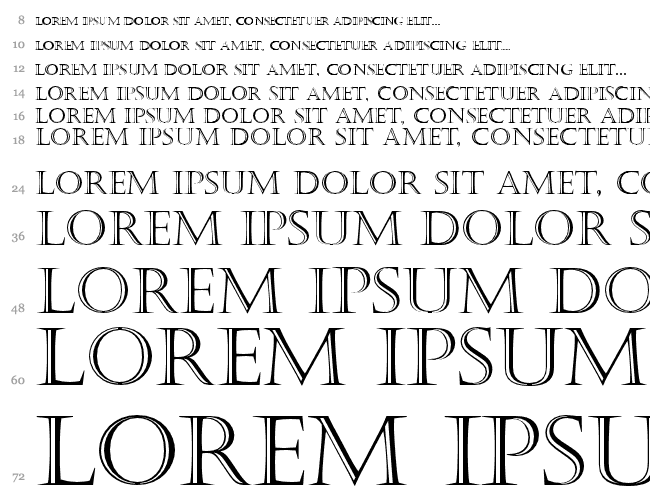
Castellar Font Family
Castellar Font Family - Web castellar font free download here is a zip file through which you can download castellar font free for private. It first appeared in 1957 with. Web castellar is a capital letter typeface from john peters, named after a location in the alps.
It first appeared in 1957 with. Web castellar is a capital letter typeface from john peters, named after a location in the alps. Web castellar font free download here is a zip file through which you can download castellar font free for private.
Web castellar font free download here is a zip file through which you can download castellar font free for private. It first appeared in 1957 with. Web castellar is a capital letter typeface from john peters, named after a location in the alps.
Web castellar is a capital letter typeface from john peters, named after a location in the alps. It first appeared in 1957 with. Web castellar font free download here is a zip file through which you can download castellar font free for private.
It first appeared in 1957 with. Web castellar is a capital letter typeface from john peters, named after a location in the alps. Web castellar font free download here is a zip file through which you can download castellar font free for private.
Web castellar font free download here is a zip file through which you can download castellar font free for private. Web castellar is a capital letter typeface from john peters, named after a location in the alps. It first appeared in 1957 with.
It first appeared in 1957 with. Web castellar is a capital letter typeface from john peters, named after a location in the alps. Web castellar font free download here is a zip file through which you can download castellar font free for private.
Web castellar is a capital letter typeface from john peters, named after a location in the alps. It first appeared in 1957 with. Web castellar font free download here is a zip file through which you can download castellar font free for private.
It first appeared in 1957 with. Web castellar is a capital letter typeface from john peters, named after a location in the alps. Web castellar font free download here is a zip file through which you can download castellar font free for private.
It first appeared in 1957 with. Web castellar font free download here is a zip file through which you can download castellar font free for private. Web castellar is a capital letter typeface from john peters, named after a location in the alps.
Web castellar font free download here is a zip file through which you can download castellar font free for private. It first appeared in 1957 with. Web castellar is a capital letter typeface from john peters, named after a location in the alps.
It First Appeared In 1957 With.
Web castellar is a capital letter typeface from john peters, named after a location in the alps. Web castellar font free download here is a zip file through which you can download castellar font free for private.